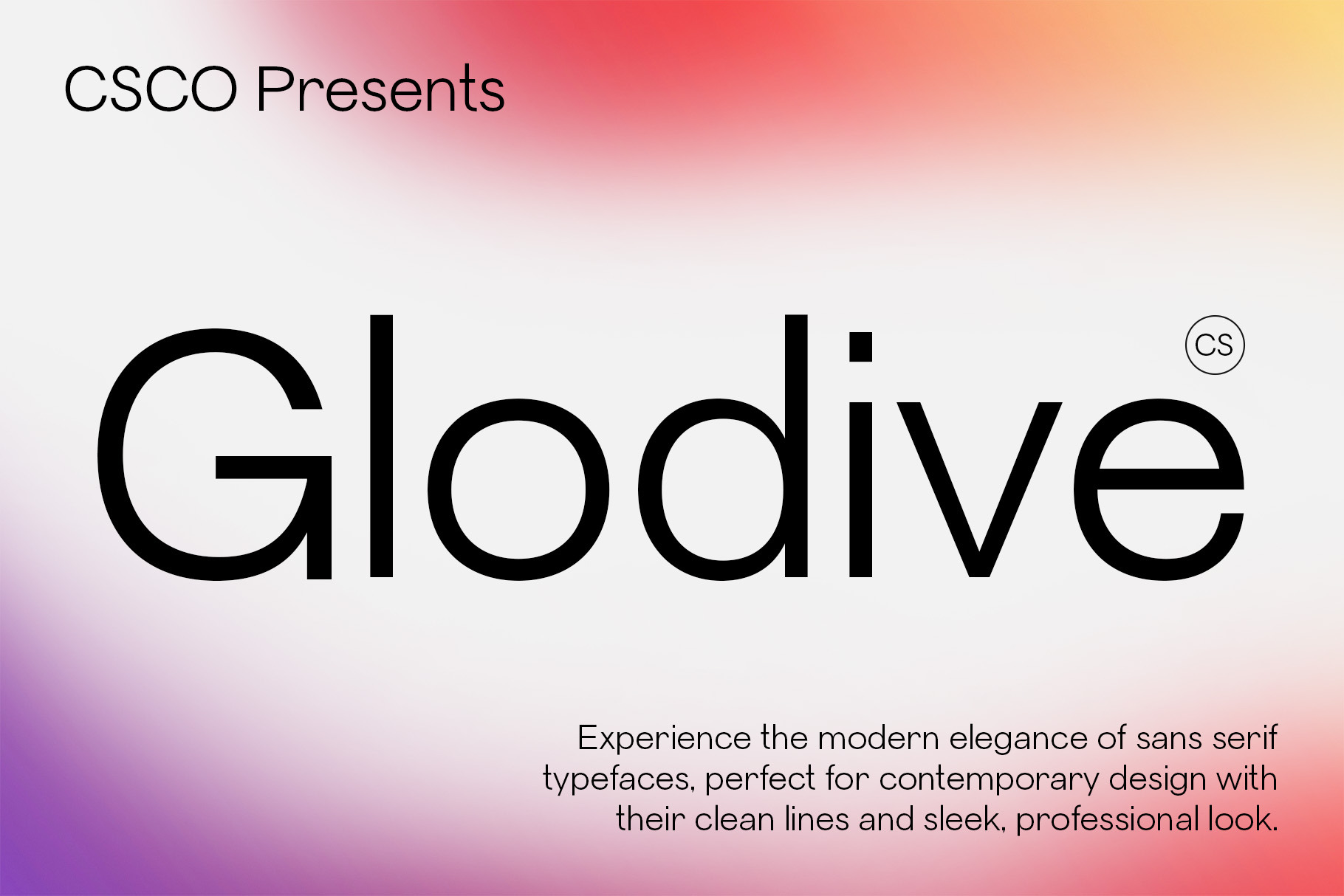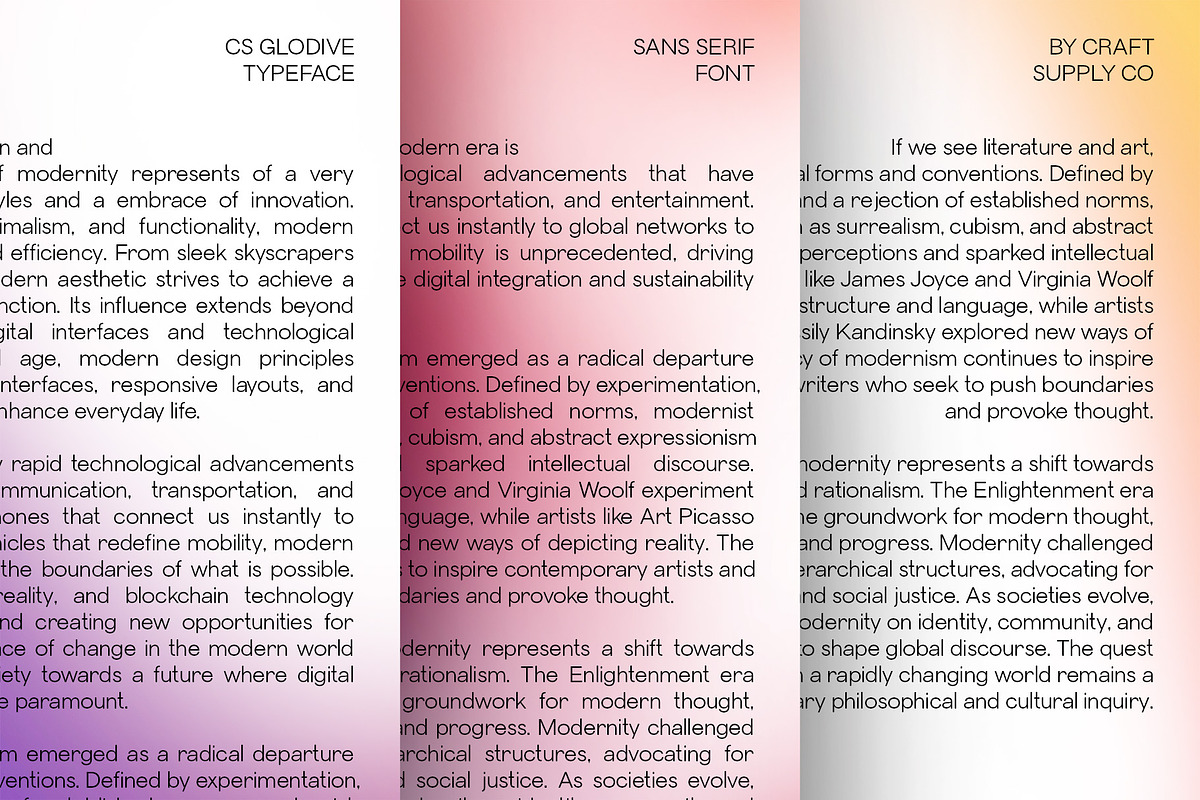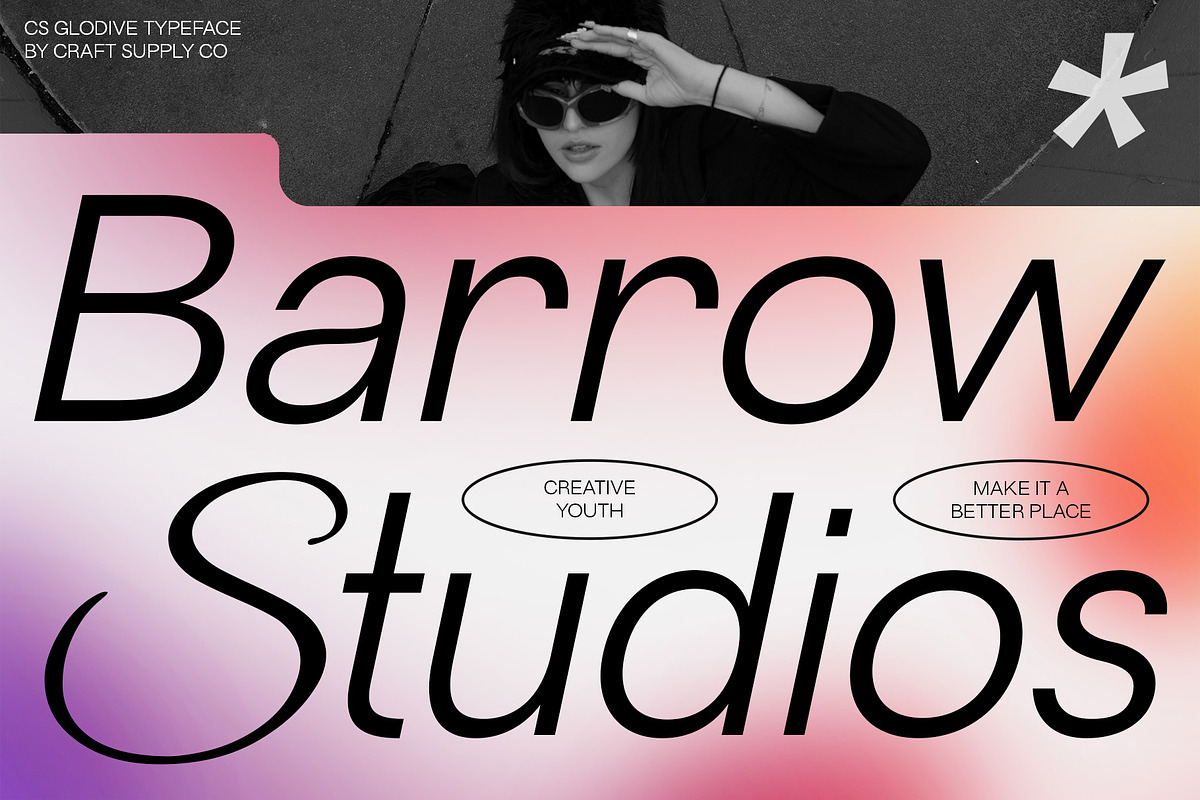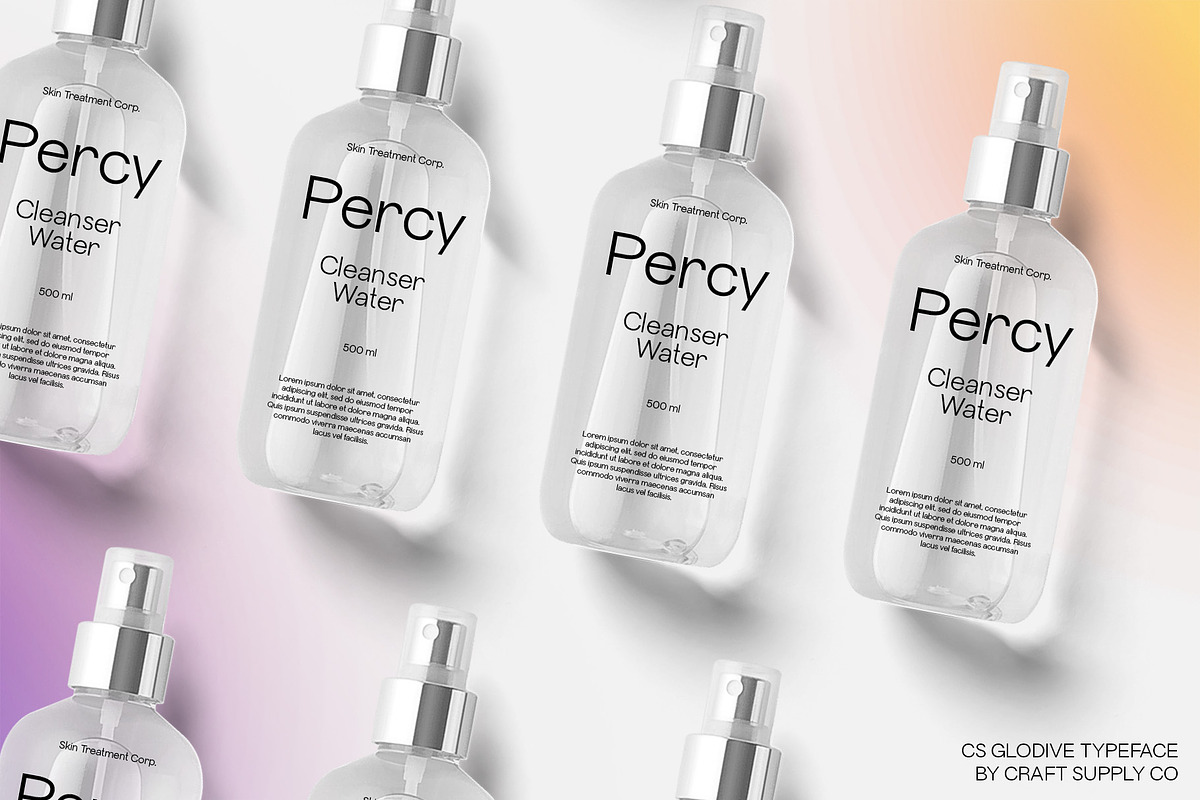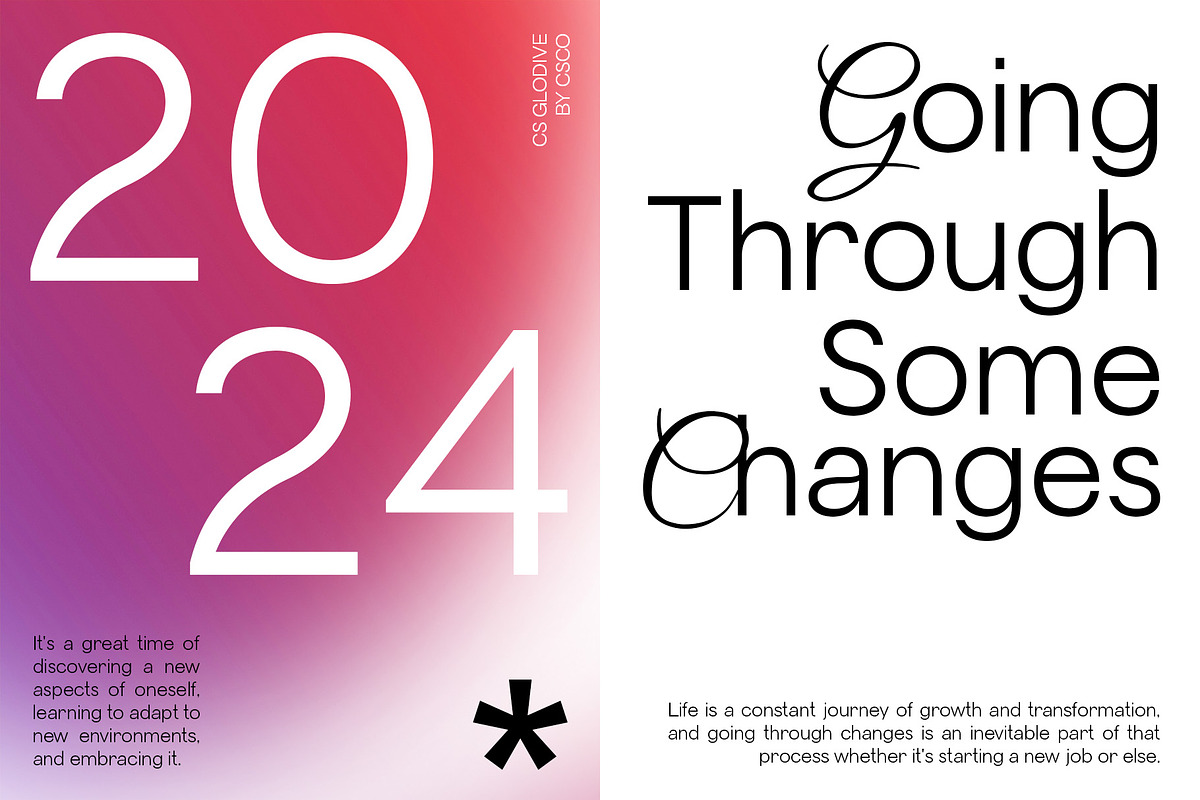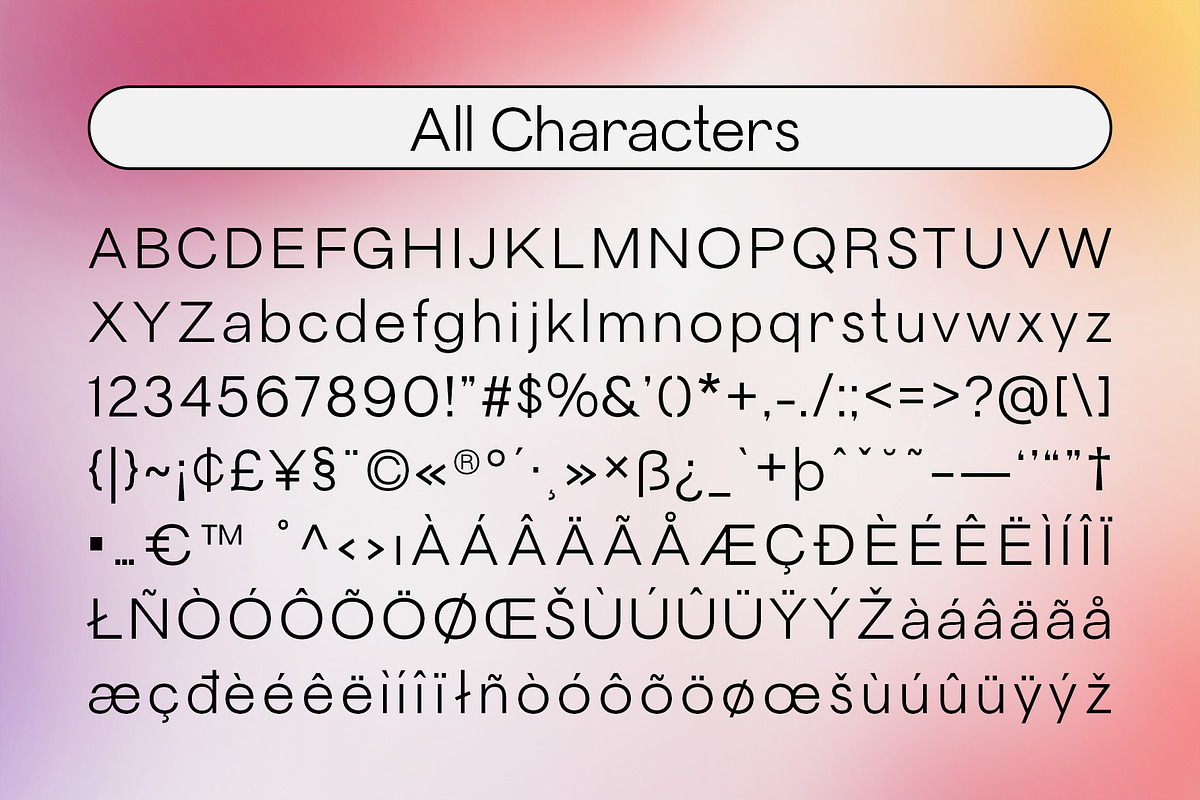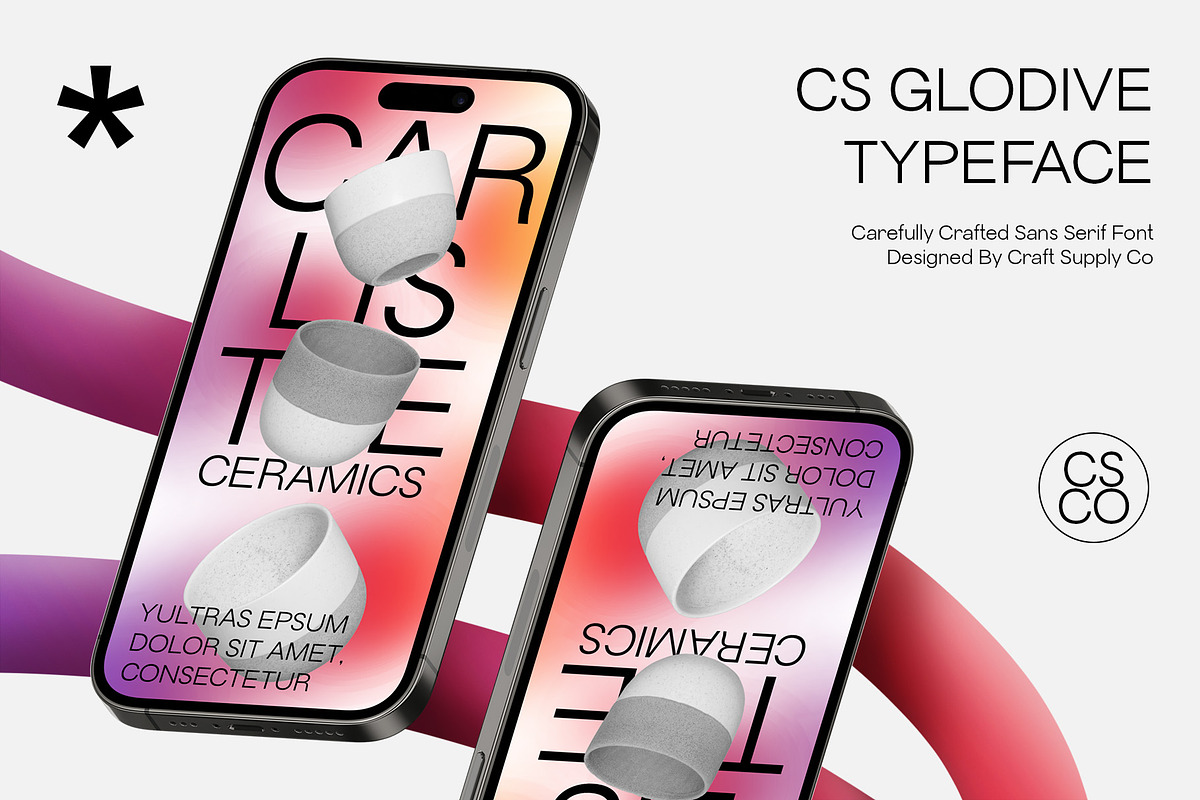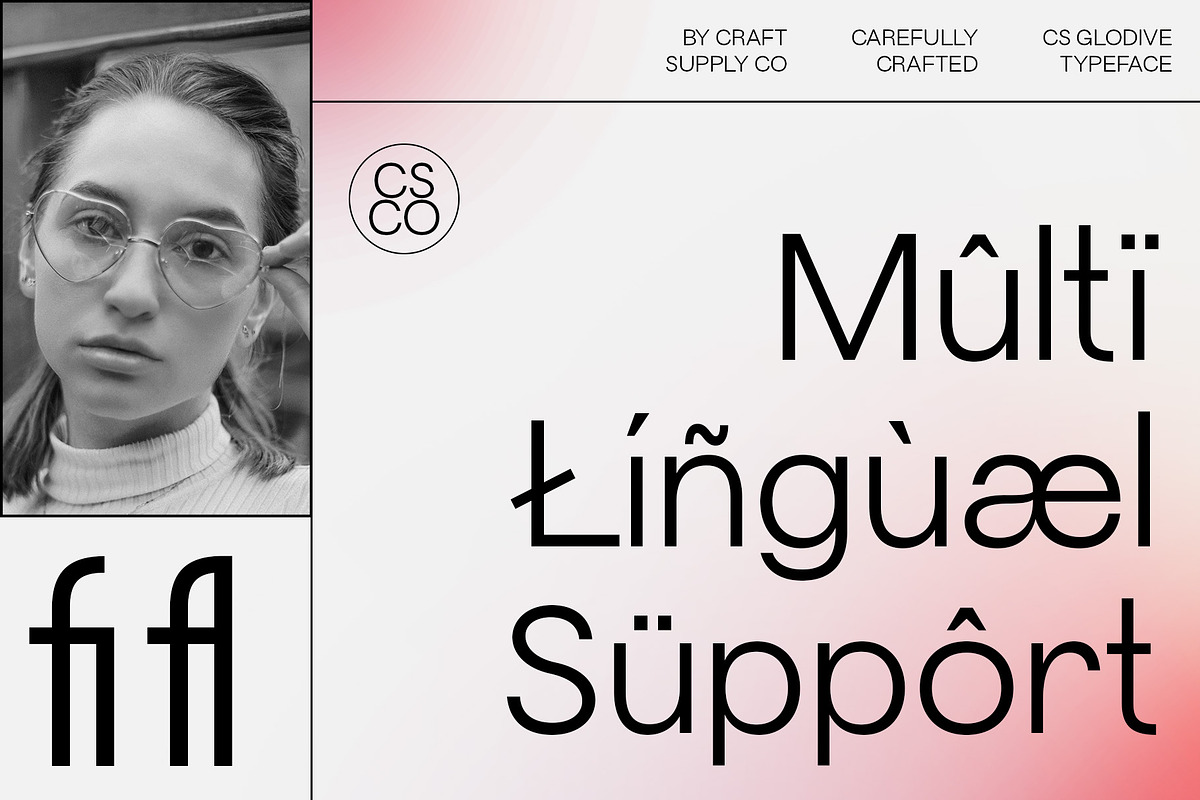
CS Glodive – Modern Font
CS Glodive – Modern Font: Sleek and Professional
Modern Sans Serif Font with an Elegant Touch
CS Glodive is a modern sans-serif font that combines a clean, minimalist design with an elegant touch. Perfect for the corporate world, this font provides a professional and neat appearance, making it ideal for a variety of design applications.
Perfect for Corporate Use
The clean and minimalist design of CS Glodive makes it perfect for the corporate world. Whether used in company logos, official documents, websites, or promotional materials, this font ensures clear and reliable visual communication.
Elegant and Classy Feel
The elegant touch of CS Glodive adds a luxurious and classy feel to your designs. Whether you’re creating a sleek corporate identity or designing professional documents, this font will elevate your design and leave a lasting impression.
Versatile and Reliable
CS Glodive is a versatile font that can be used in a variety of design projects. Its clean lines and elegant touch make it suitable for any design that requires a modern and professional look.
Enhance Your Designs with CS Glodive
With its sleek and professional design, CS Glodive is the perfect font for corporate use. Whether you’re designing a logo, website, or promotional materials, this font will help you create designs that are both stylish and reliable.